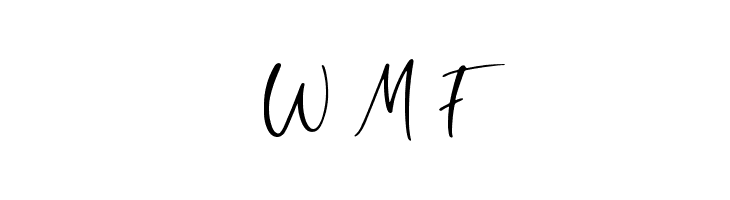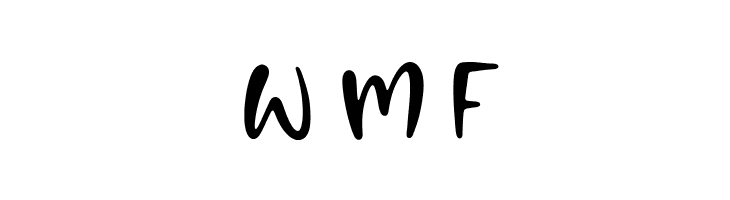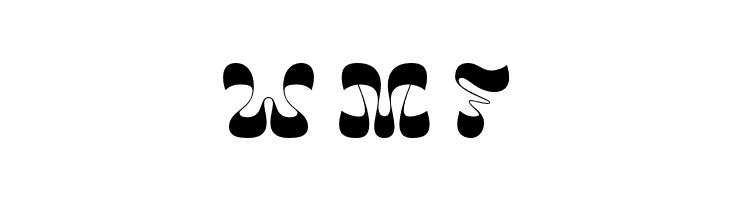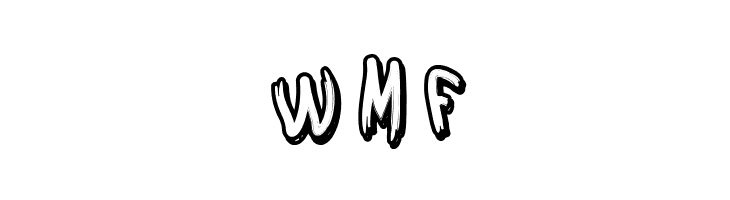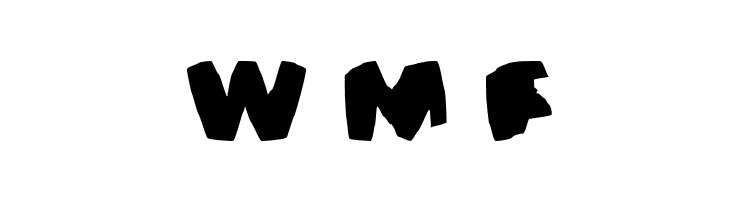
A bold, playful font with thick, rounded letters and a cartoonish feel.
Bold, blocky numerals with an industrial, military-inspired style.
A flowing, cursive font with elegant curves and a handwritten style.
Bold, graffiti-style hand-drawn display font.
A bold, graffiti-inspired stencil font with a rough, hand-drawn texture.
A bold, playful handwritten font with rounded, dynamic strokes.
A bold, playful script font with whimsical curves and ornate details.
A bold, artistic font with high contrast and a flowing, decorative style.